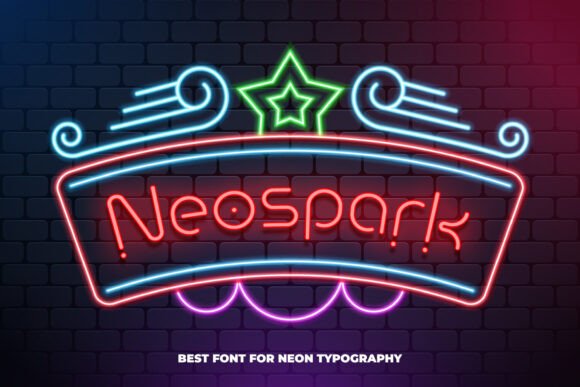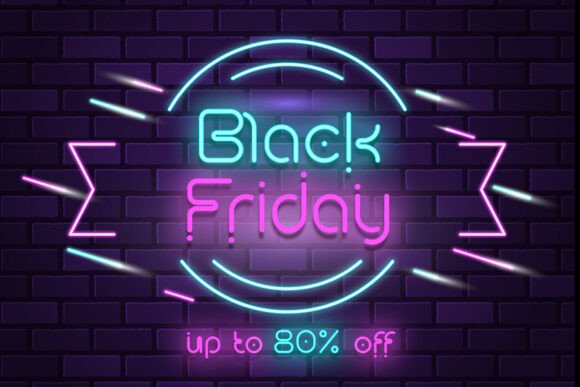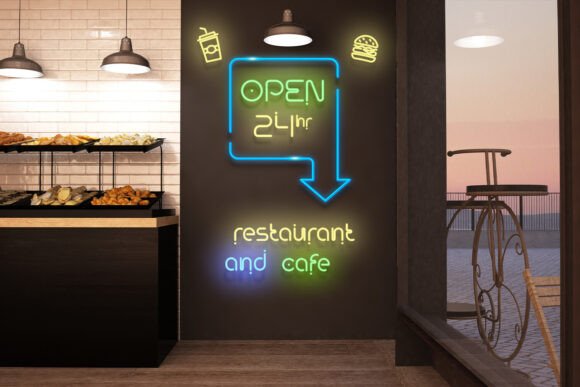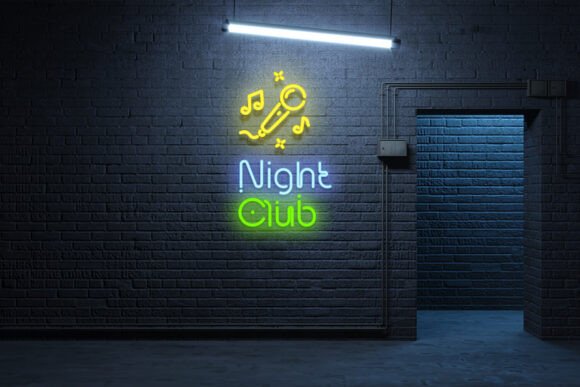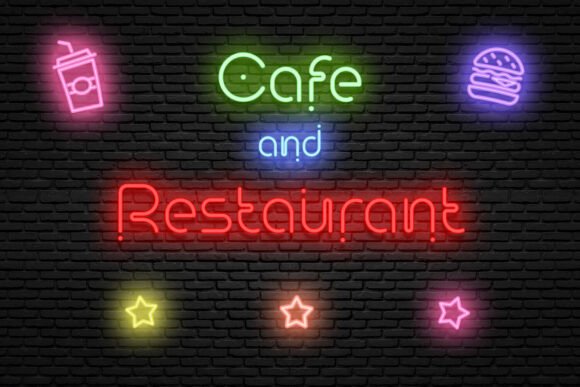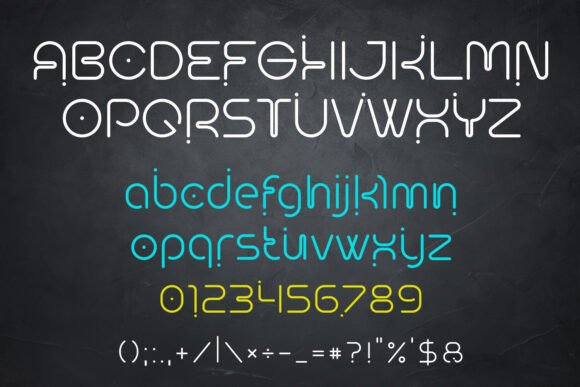
Introduction to Neospark Font
Have you ever stared at a blank canvas, waiting for inspiration to strike? You’re not alone. As creatives, we’ve all been there, searching for that spark that sets our next design project ablaze. And what better way to ignite that flame than with a font that’s as vibrant as it is modern? Enter the Neospark Font, a game-changing design resource that’s about to revolutionize the way you approach your creative projects.
With its sleek rounded lines and dynamic neon-inspired colors, the Neospark Font is the perfect addition to any designer’s toolkit. Whether you’re working on a branding project, creating digital artwork, or promoting an event, this high-quality font is sure to stand out from the crowd. And the best part? It’s available for free download, complete with a transparent background that lets your design shine.
Key Features of Neospark Font
- Features a clean and minimalist design, making it perfect for use in logos, typography, and branding materials.
- Designed to be highly legible and readable, even at small font sizes, making it an excellent choice for creative projects.
Honest Review: Neospark Font
As a designer, I’m always on the lookout for high-quality design resources that can elevate my creative projects. Recently, I stumbled upon the Neospark Font, and I’m excited to share my thoughts on it.
- ✨ High-quality design: The Neospark Font boasts a sleek, modern design that’s perfect for any project.
- ✨ Versatile use: This font can be used for both print and digital projects, making it a great addition to my design toolkit.
However, I do have a few minor gripes:
- ⚠️ Limited character set: The Neospark Font only comes with a limited character set, which may not be suitable for projects that require a wide range of characters.
- ⚠️ No transparent background: The font does not come with a transparent background option, which may not be ideal for projects that require a background image or texture.
Overall, I’m impressed with the Neospark Font, and I think it’s a great addition to any designer’s toolkit. While it may have a few limitations, its high-quality design and versatility make it a great resource for any creative project.
How to Use Neospark Font
The Neospark Font is a high-quality design resource perfect for any creative project. With its modern and sleek design, this font is ideal for various applications, including branding, advertising, and digital media.
Tips for Getting the Most Out of Neospark Font
To get the most out of the Neospark Font, use it with a transparent background to create a clean and modern design. Also, experiment with different font sizes and styles to add visual interest to your project.
The Neospark Font is commonly used for branding, advertising, and digital media projects. Its modern and sleek design makes it perfect for creating eye-catching headlines, titles, and logos.
Yes, the Neospark Font has a transparent background, making it perfect for use on images with complex backgrounds. This feature allows for a seamless integration with your design resource, giving you more creative freedom.